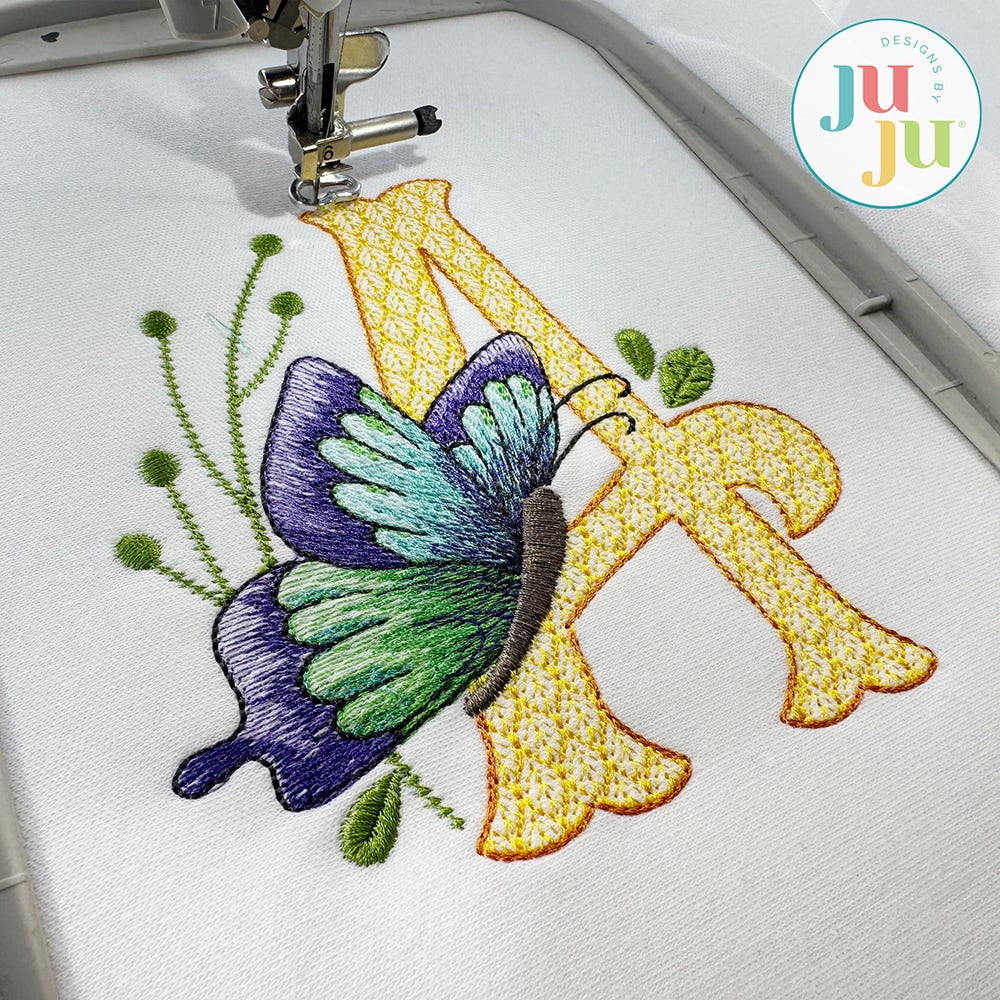
Elegant Butterfly Monogram Embroidery Font
Your monograms will soar to new heights with our embroidery-only Elegant Butterfly Monogram!
The letters feature leaf-themed motif fill stitching. Each letter is accented with florals and a beautiful butterfly. To maximize stitch efficiency, overlapped stitches have been removed; therefore, the butterfly cannot be skipped. Each butterfly is comprised of a variety of embroidery stitch types, including sketch fill elements. The space between each line of stitching varies such that it is more dense on one side of the shape than the other to create the shading effect. We do NOT recommend resizing designs with sketch elements in software.